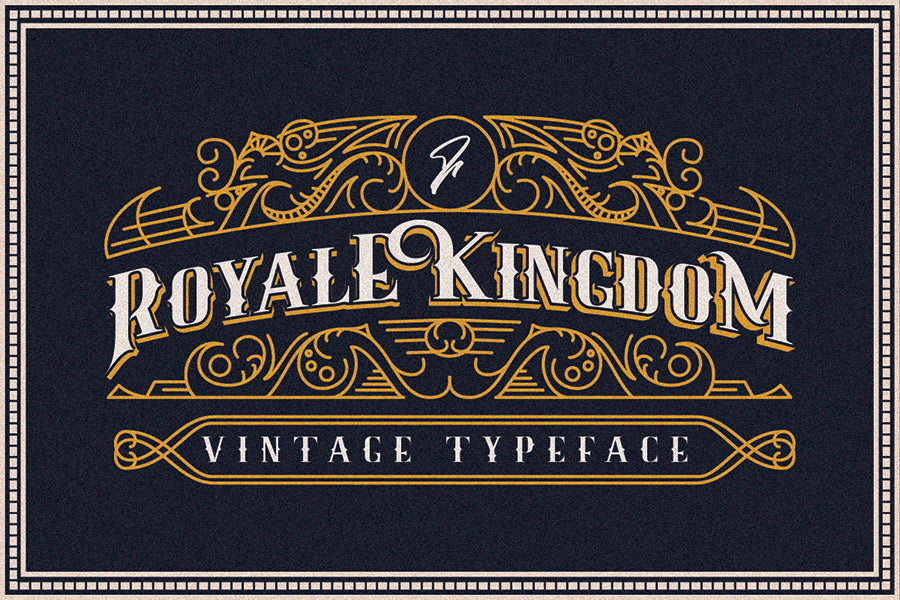
Free Royale Kingdom Font Demo
Take a look at this dazzling free royale kingdom font demo. This is a downloadable free font file brought to you by Free Design Resources. Easily amaze your audience with this fancy font and make your graphic designs pop up from the crowd.